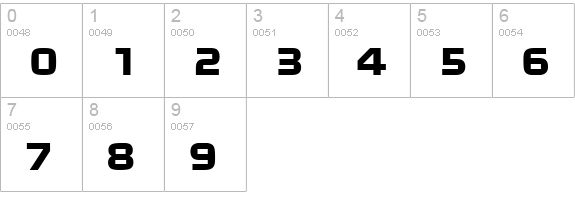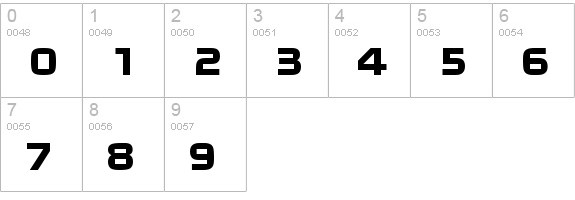
N-Car-Regular Font Details
N-Car-Regular is the standard, neutral variant in the N typeface family \xE2\x80\x94 well suited to general body text, paragraphs, and standard typographic work.
N-Car-Regular is a sleek and modern font that exudes sophistication and style. With its clean lines and balanced proportions, this versatile typeface is perfect for a wide range of design projects. Whether you're creating a professional presentation, designing a sleek website, or crafting eye-catching marketing materials, N-Car-Regular is sure to make a lasting impression. One of the best things about N-Car-Regular is that it is completely free to download at FontsMarket.com. This means that you can access this high-quality font without any cost, making it a valuable addition to your font library. So why wait? Add N-Car-Regular to your collection today and elevate your design projects to the next level.